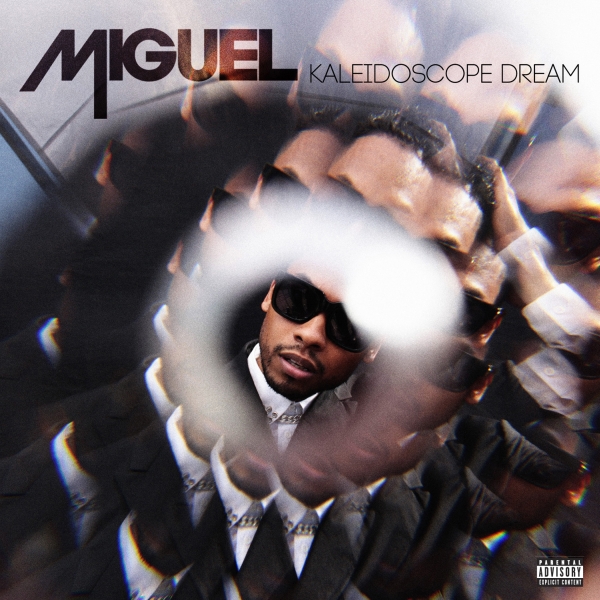
Kaleidoscope Dream Font
Fonts in UseKaleidoscope Dream is the second studio album by American singer-songwriter Miguel, released in 2012. It features a blend of R&B, funk, soul, and rock, and includes hits such as "Adorn" and "Do You...".
The font utilized on the cover for the name "MIGUEL" is most likely ITC Avant Garde Gothic Bold. Meanwhile, the font employed for the album title is a sleek and sophisticated sans-serif similar to Code Pro Light.